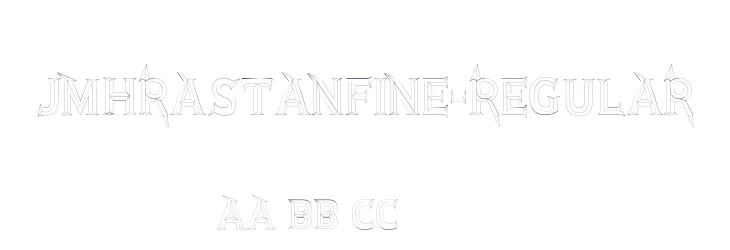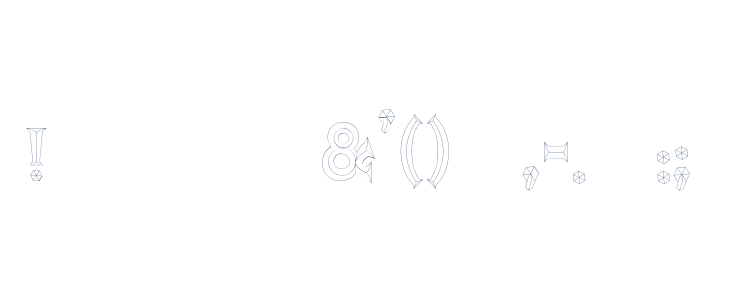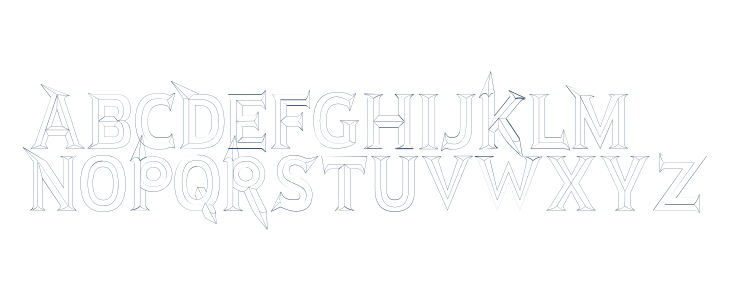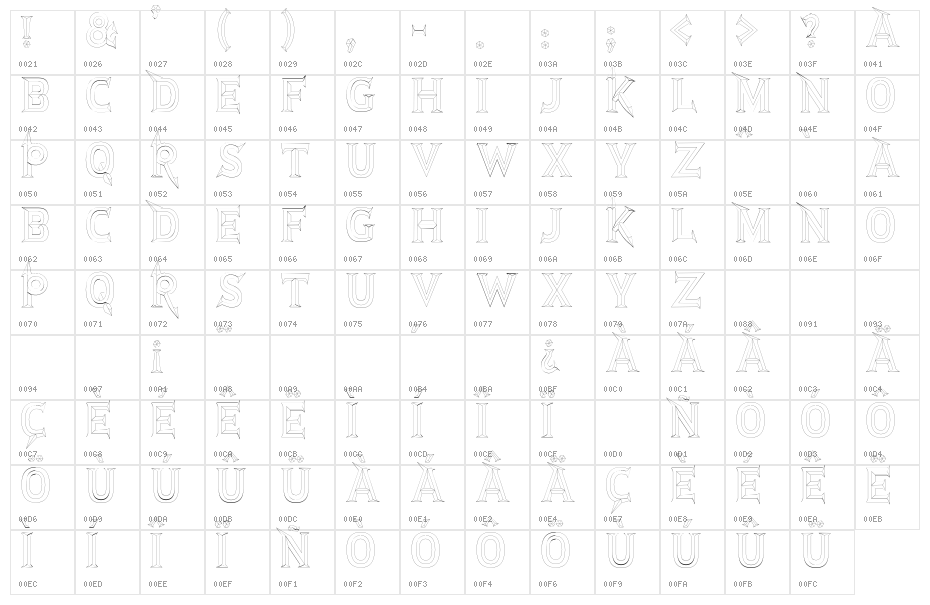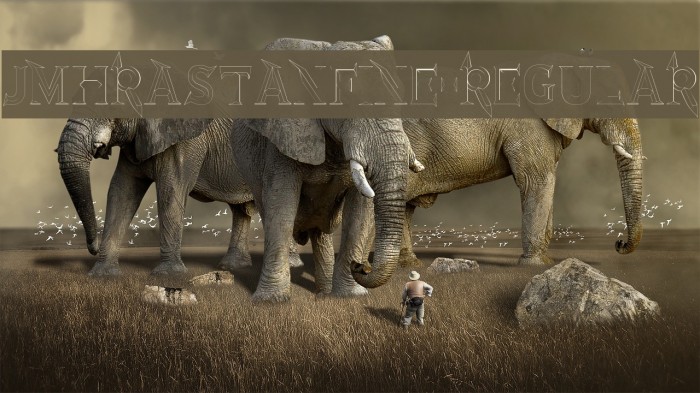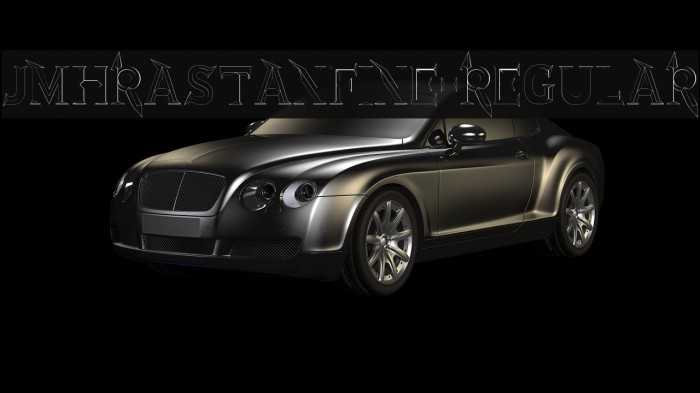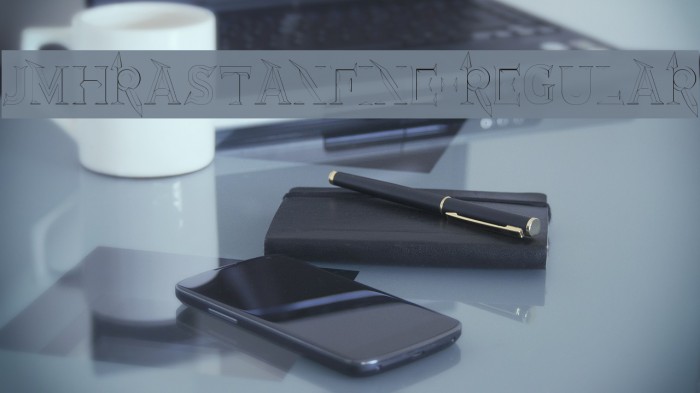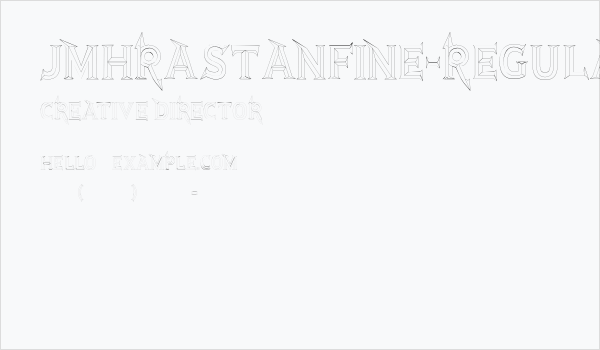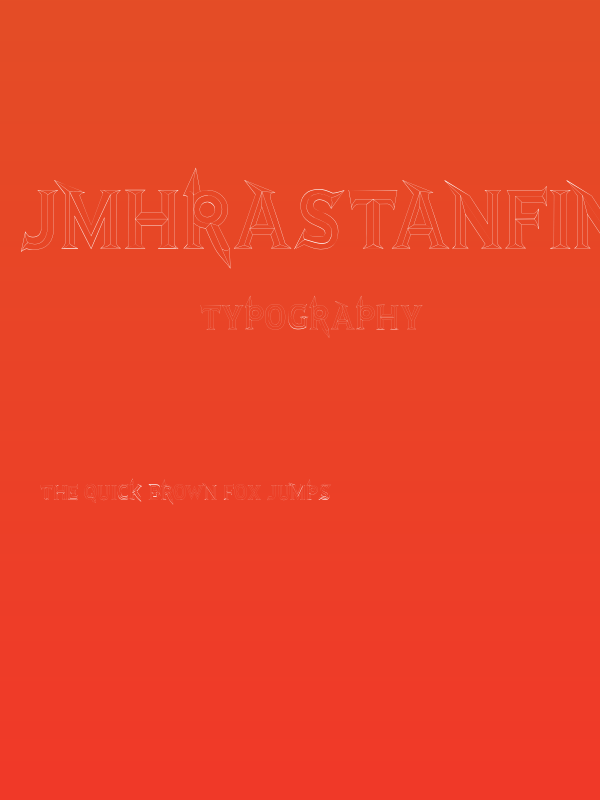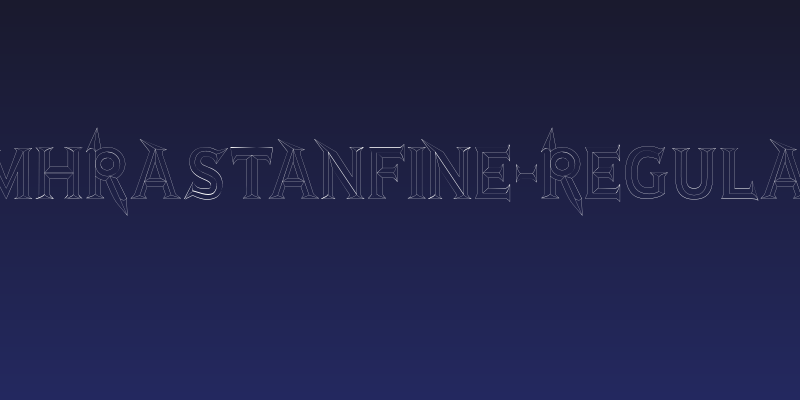
JMHRastanFine-Regular Font
JMHRastanFine-Regular Description
This font features a unique and intricate design with sharp, angular edges and geometric shapes. The characters are composed of bold lines and triangular elements, creating a striking and modern appearance. The uppercase and lowercase letters maintain a consistent style, with the uppercase being more prominent and the lowercase slightly more refined. Numbers and special characters follow the same design principles, ensuring a cohesive look across all elements. The font's distinct style makes it suitable for creative and artistic projects where a bold statement is desired.